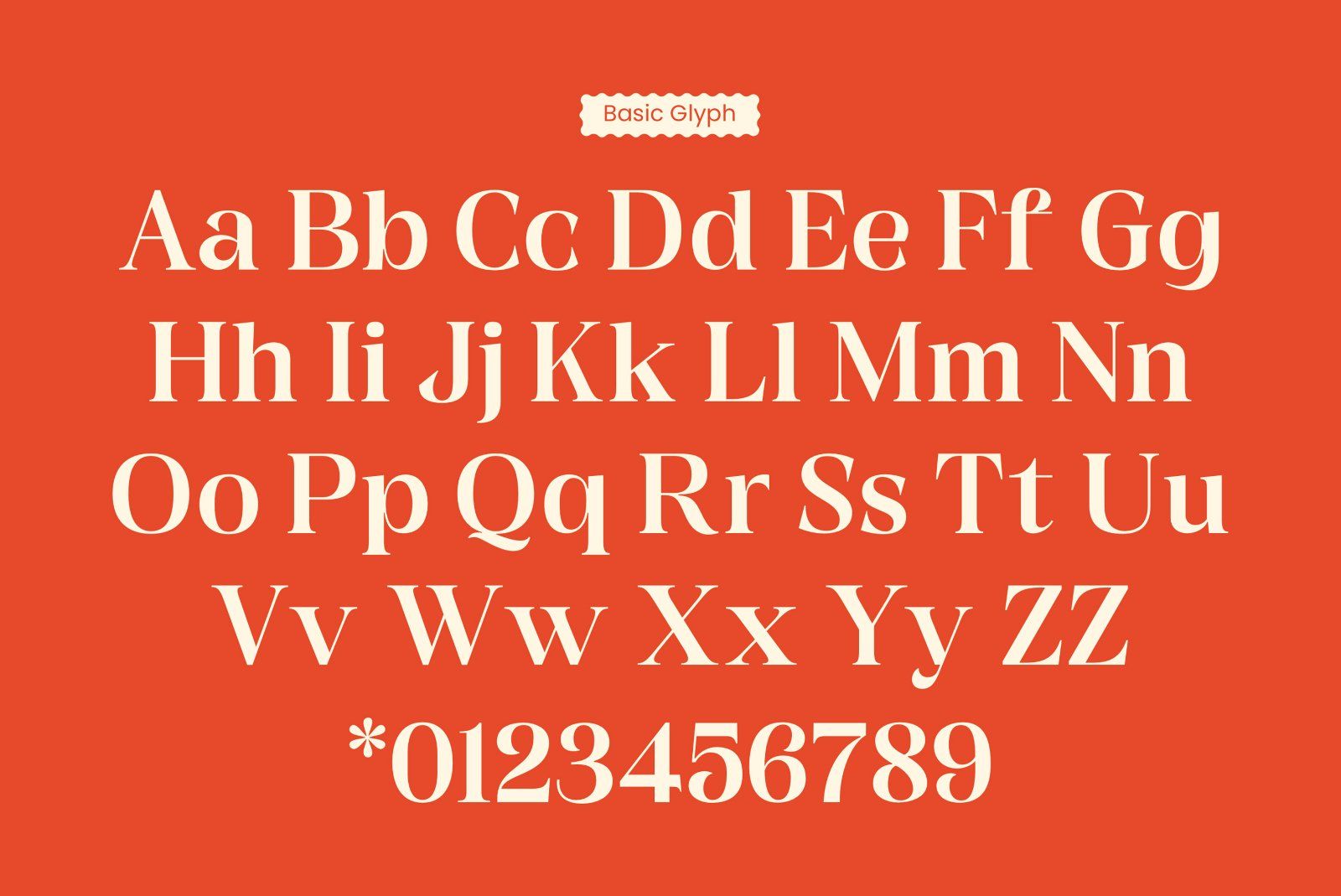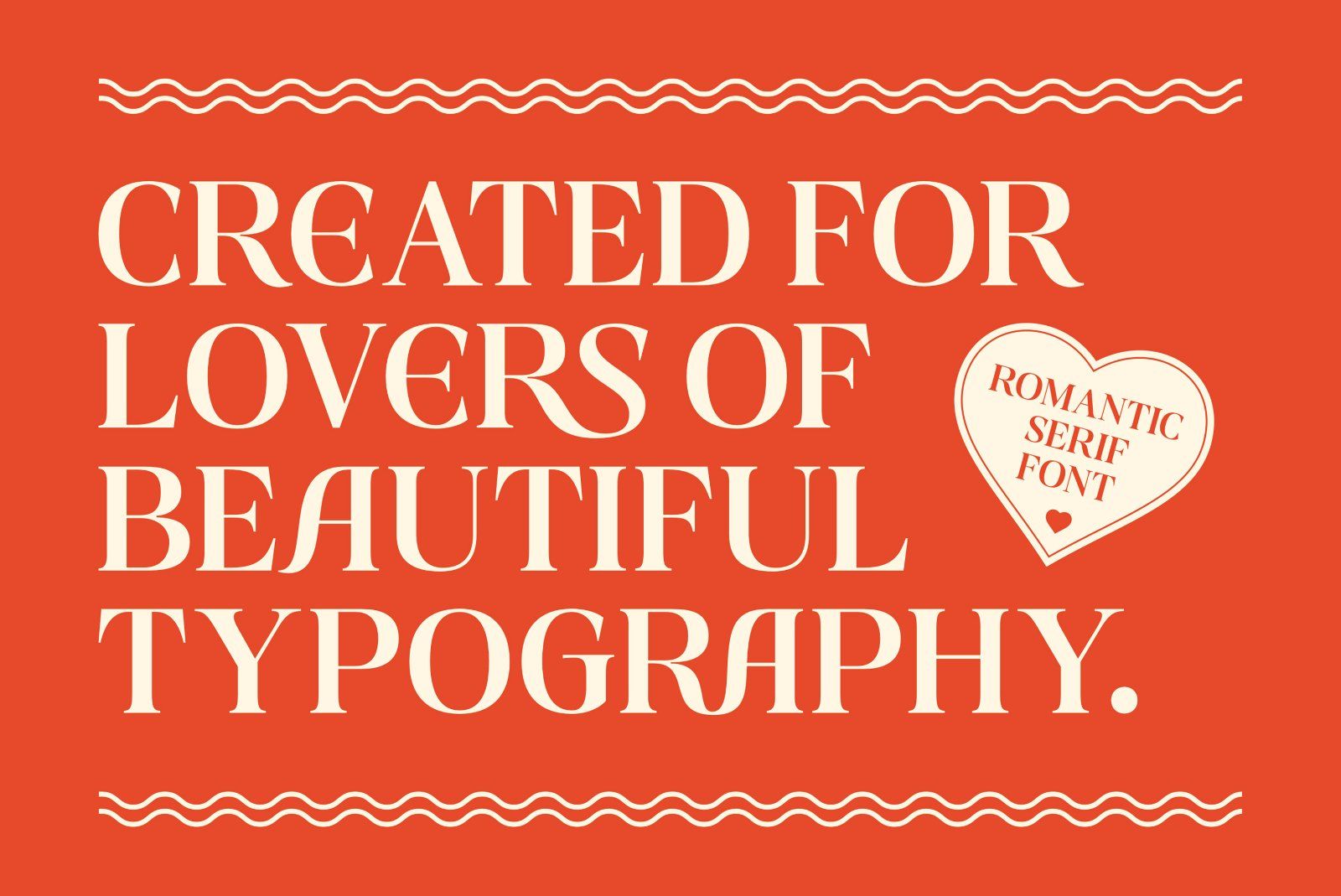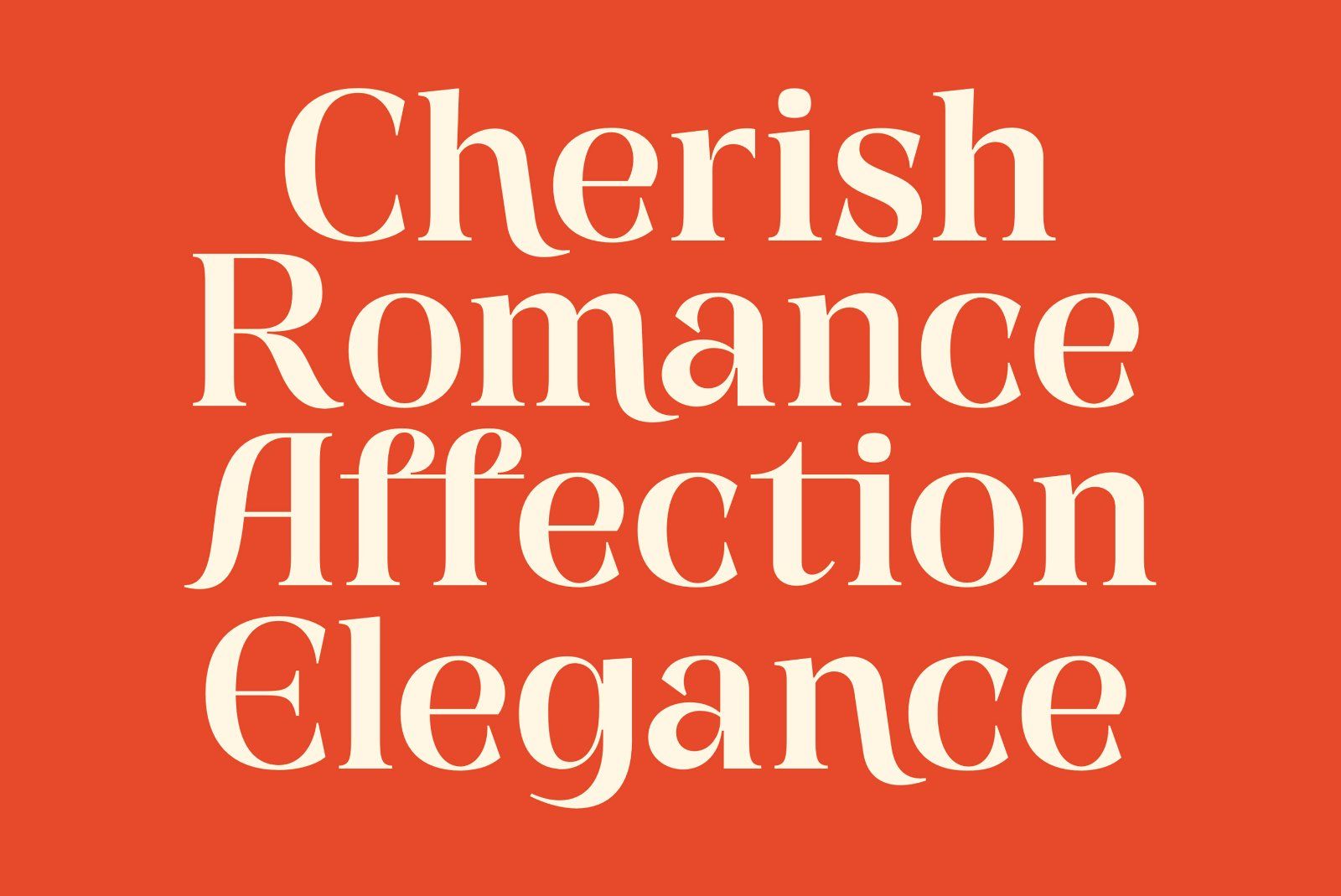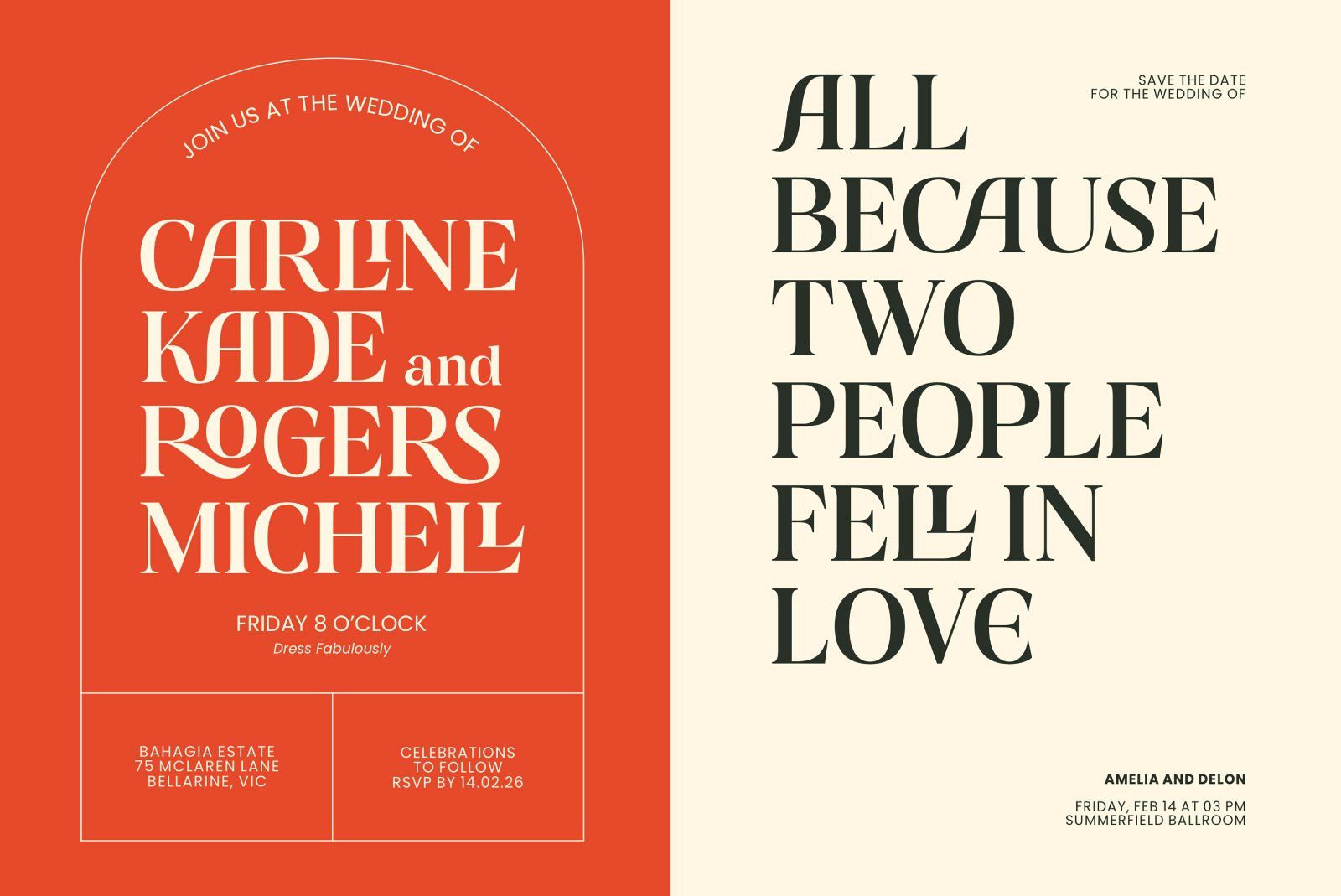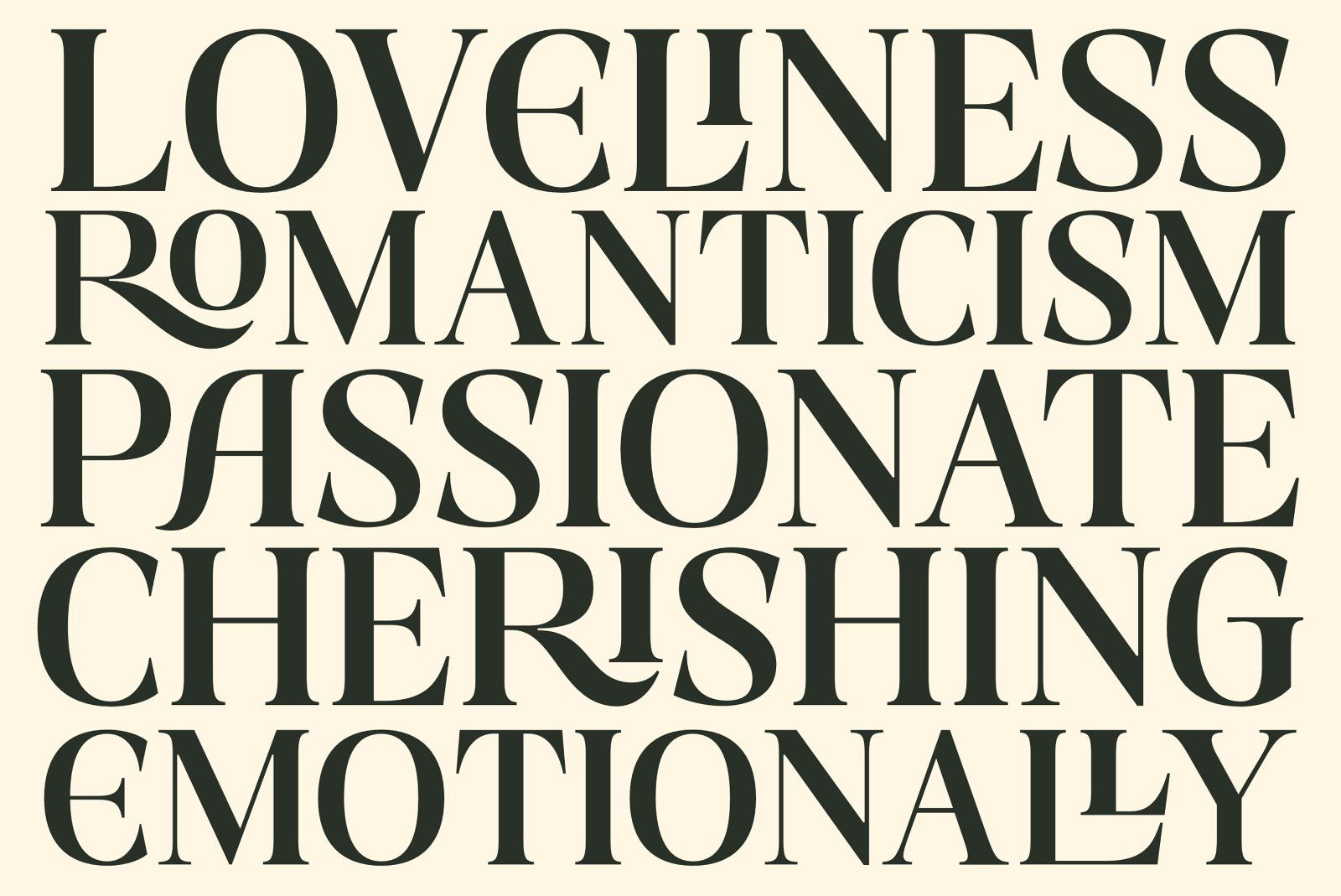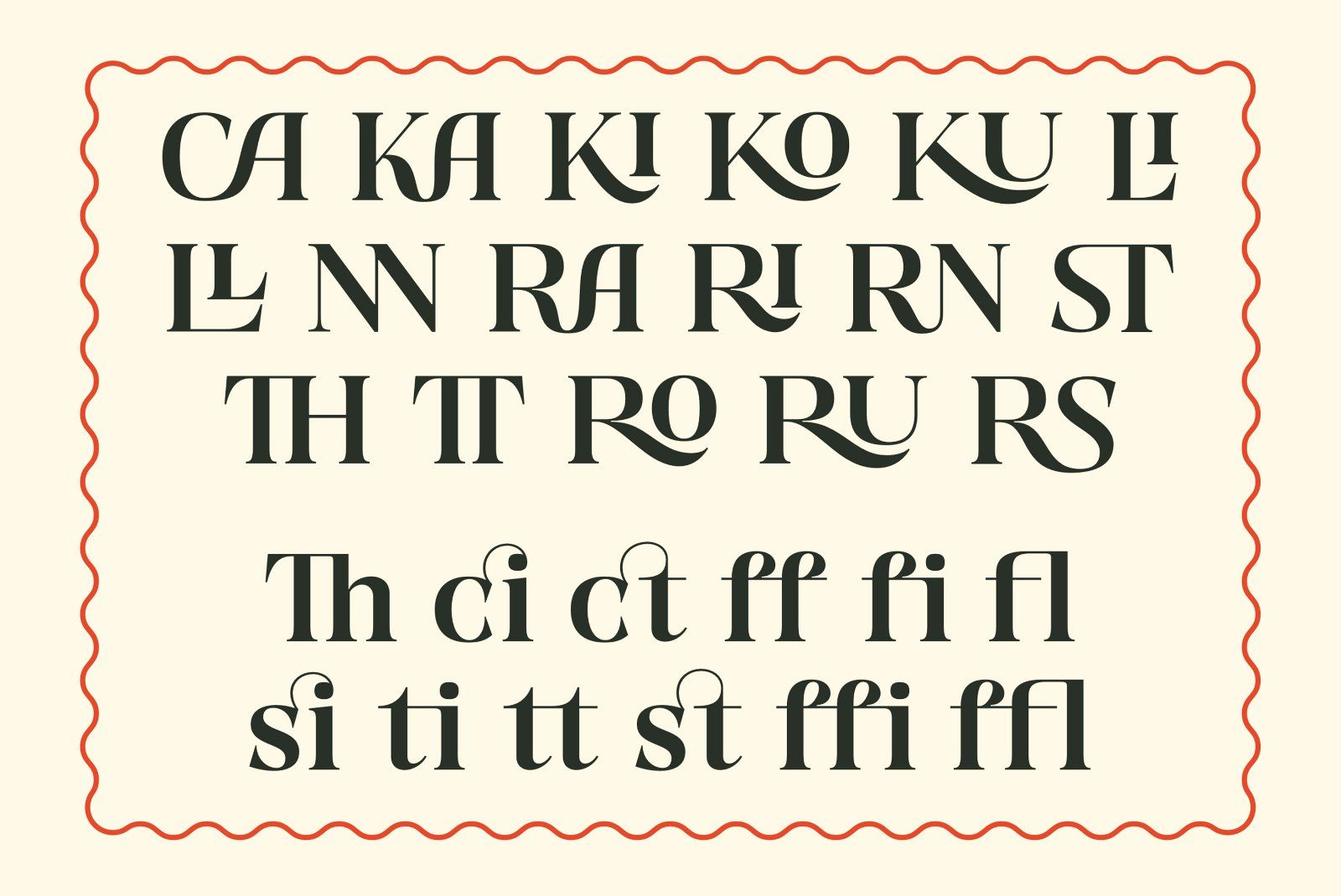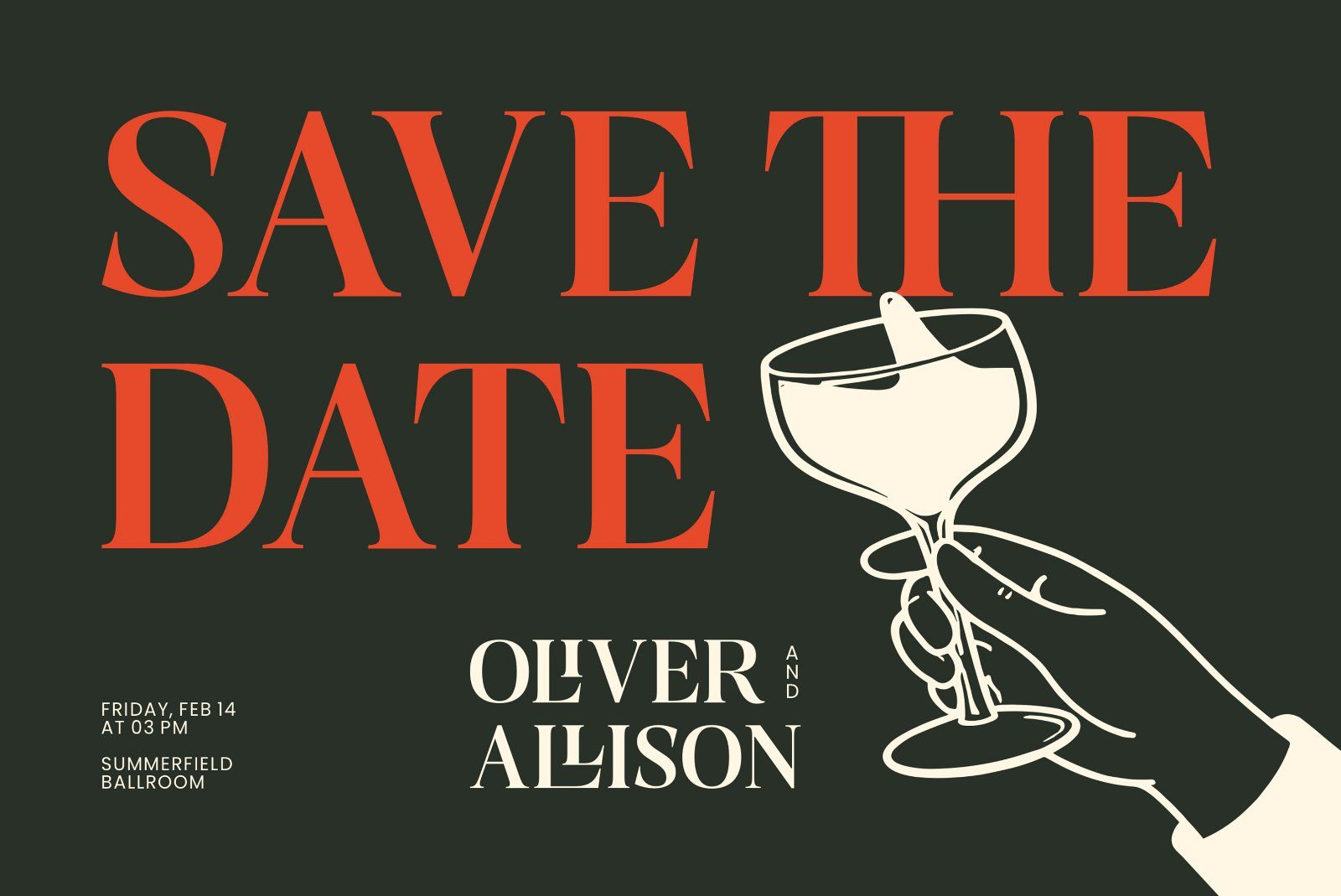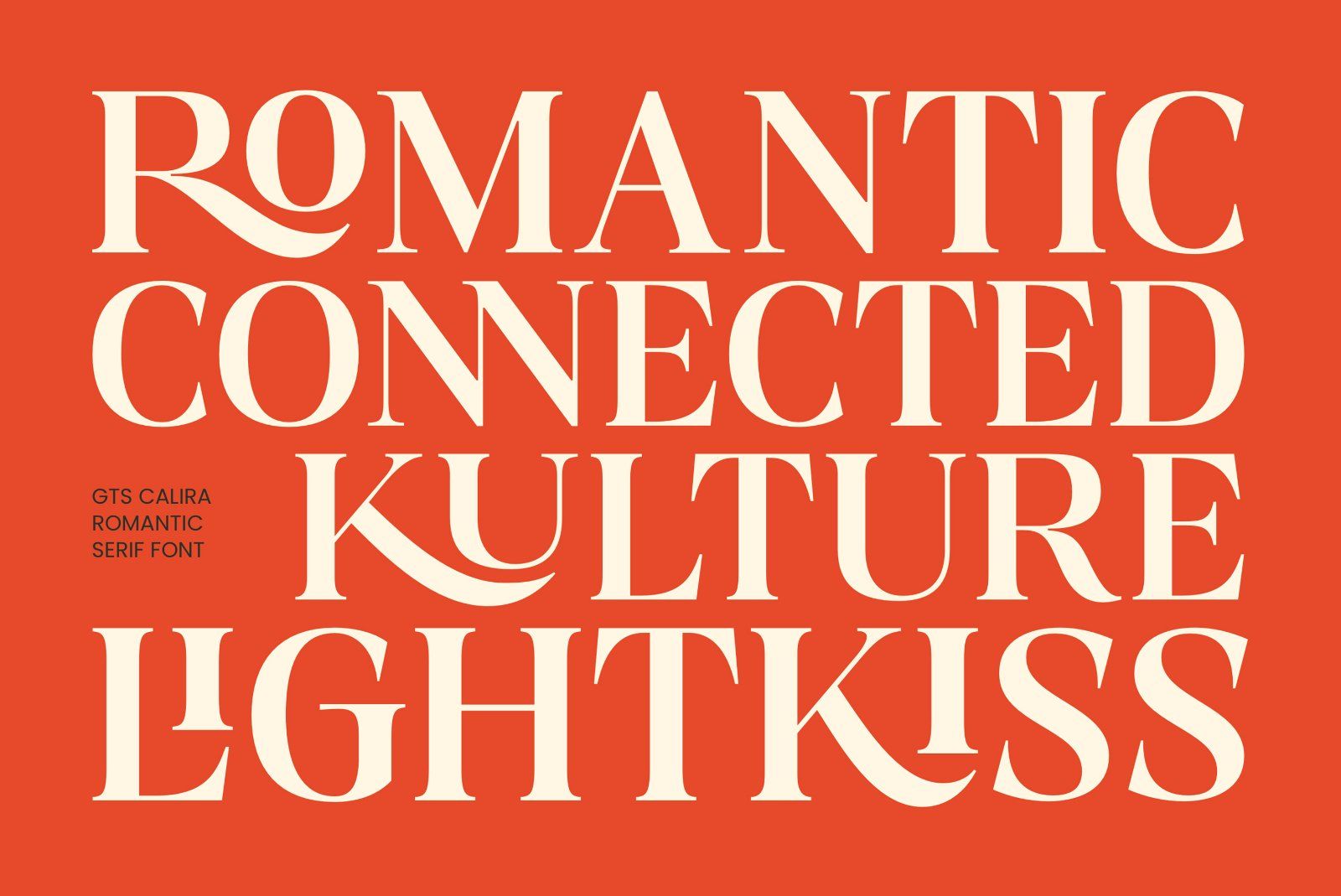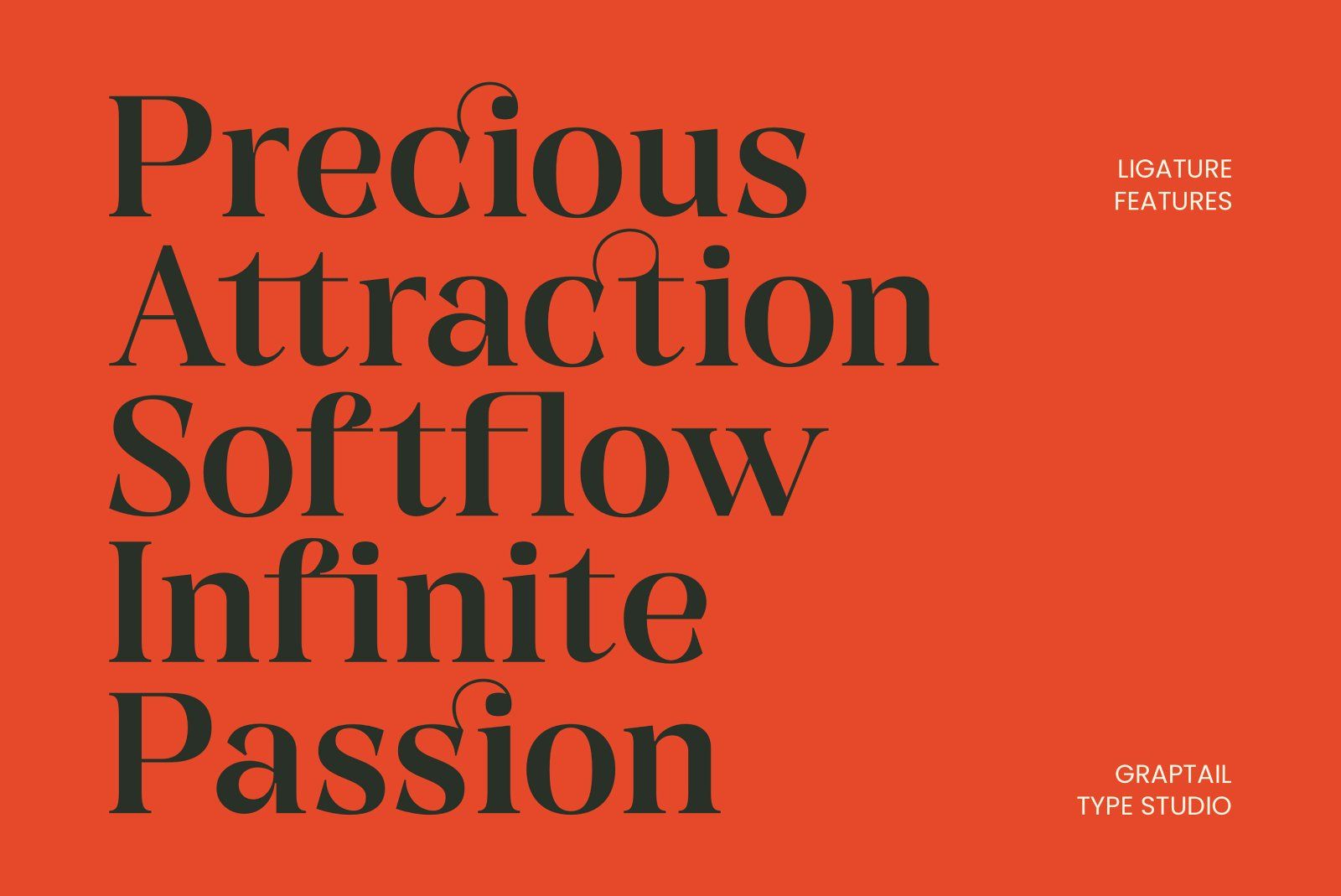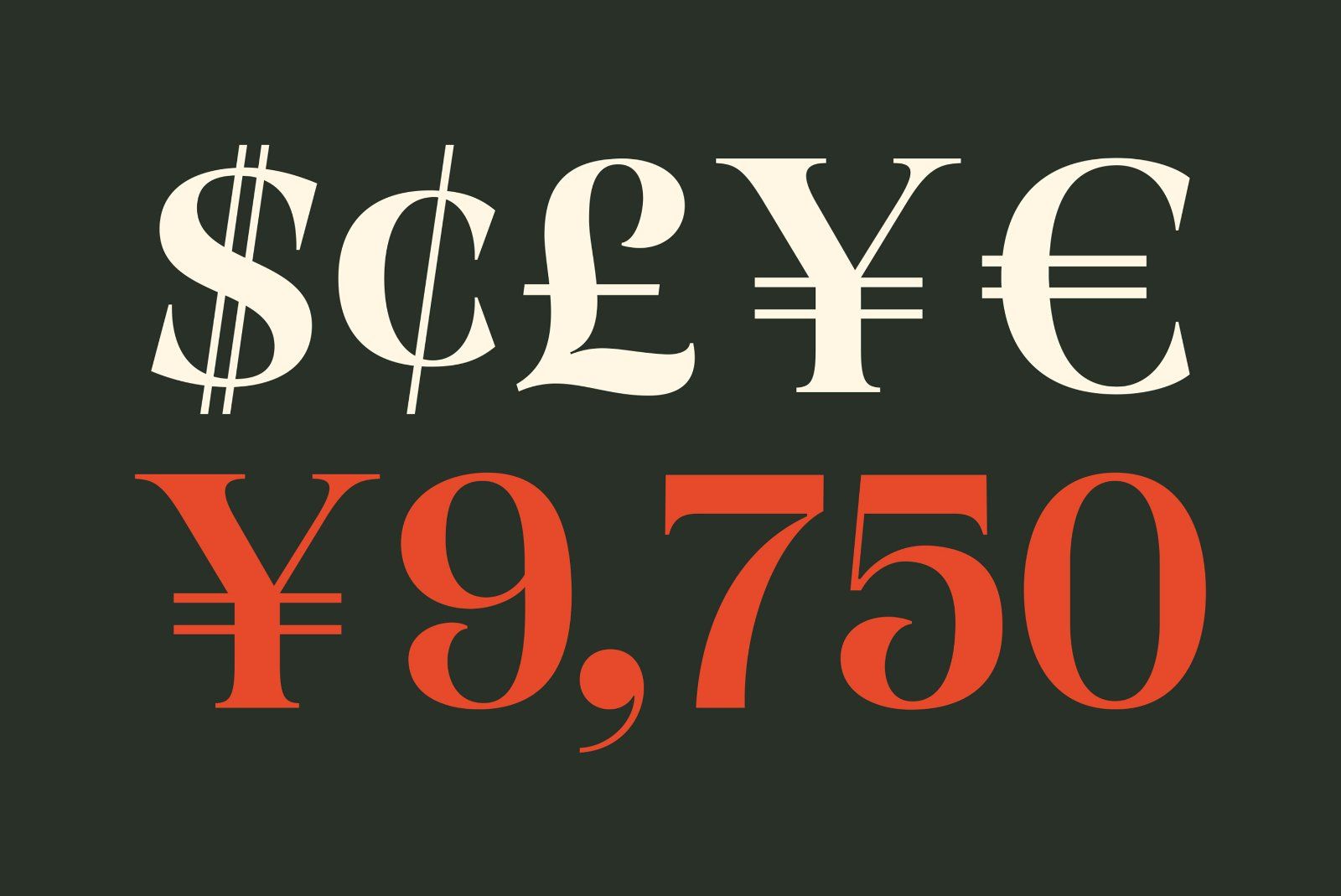
Gts Calira is a romantic serif typeface that blends classic elegance with a soft, modern expression. Designed with graceful proportions, subtle stroke contrast, and rounded terminals, this font delivers a warm, emotional, and premium feel.
The key highlight of Gts Calira is its 27 uppercase and lowercase ligatures, allowing smoother character connections and more natural typographic flow. These ligatures help create dynamic, custom-looking compositions, making every design feel more expressive and refined.